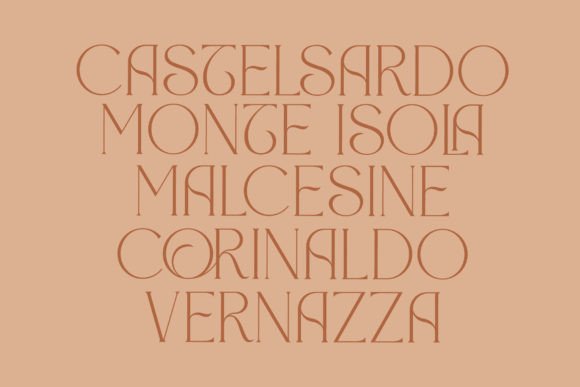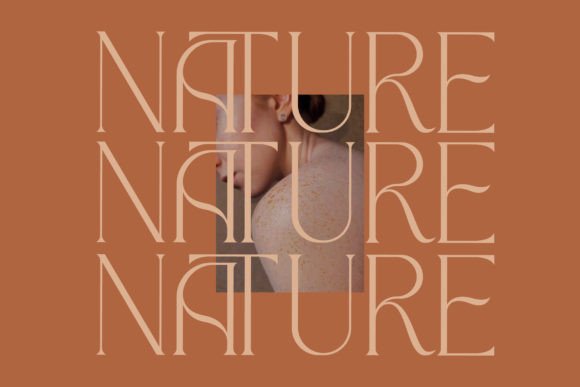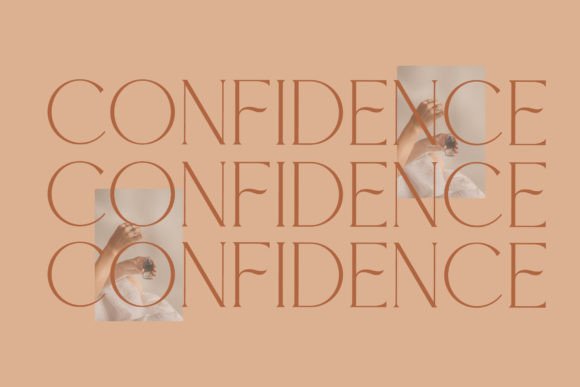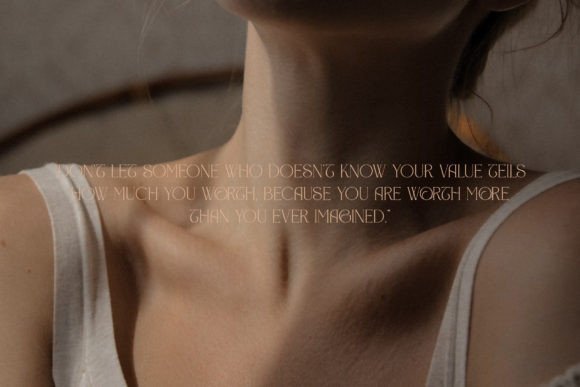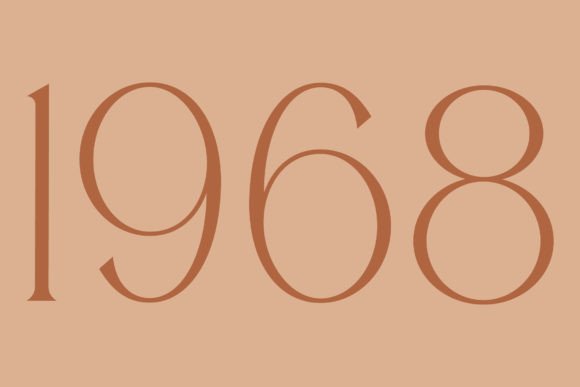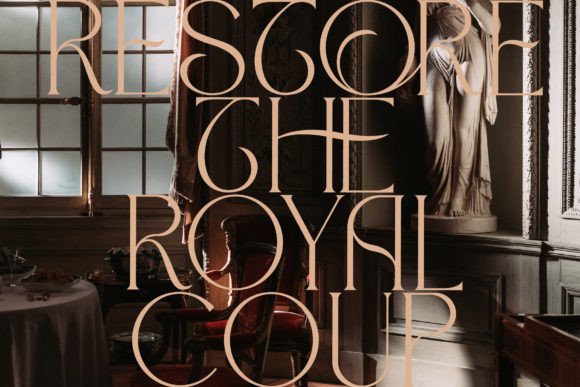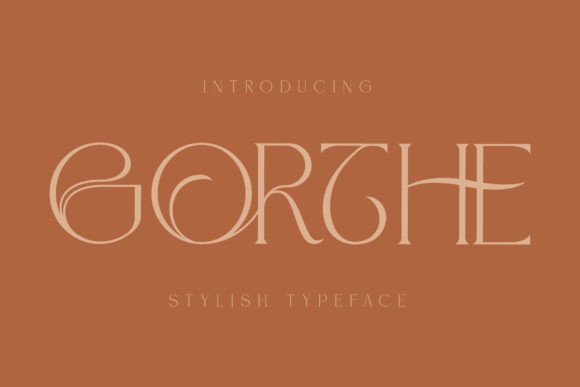
Gorthe Font: A Timeless Serif Typeface for Elegant Designs
In the world of typography, a well-crafted font can elevate a design from ordinary to extraordinary. For designers and crafters seeking a serif modern and classic typeface that exudes elegance and sophistication, look no further than Gorthe Font. This stunning typeface boasts a unique style and modern look, making it perfect for a wide range of applications, from luxury logos and book titles to fashion brands and magazine layouts.
The Characteristics of Gorthe Font
Gorthe Font is a serif typeface that strikes the perfect balance between modernity and classic charm. Its clean lines, precise curves, and elegant strokes make it an excellent choice for designs that require a touch of sophistication. The font’s unique style is characterized by:
- Classic serif structure: Gorthe Font features a traditional serif structure, complete with subtle flair and finesse.
- Modern aesthetic: The font’s sleek lines and streamlined curves give it a distinctly modern feel.
- Unique personality: Gorthe Font’s distinctive character set it apart from other serif typefaces, making it perfect for designers seeking a one-of-a-kind look.
Perfect for Elegant and Luxury Designs
Gorthe Font is specifically designed to add a touch of elegance and luxury to any design project. Its sophisticated appearance makes it perfect for:
- Luxury logos: Create a lasting impression with a custom logo that exudes refinement and poise.
- Book or movie title design: Add a touch of classic Hollywood glamour to your title designs with Gorthe Font.
- Fashion brands: Elevate your fashion brand with a sophisticated typeface that reflects your commitment to style and quality.
- Magazine layouts: Create a visually stunning magazine layout with Gorthe Font’s elegant and refined appearance.
- Clothes and lettering: Use Gorthe Font to add a touch of sophistication to your clothing designs, lettering projects, and more.
- Quotes and phrases: Showcase your favorite quotes and phrases in a beautiful and elegant font that demands attention.
Why Choose Gorthe Font?
With so many typefaces to choose from, why settle on Gorthe Font? Here are just a few reasons why designers and crafters love this versatile serif typeface:
- Unique style: Gorthe Font’s distinctive character set it apart from other serif typefaces.
- High-quality design: The font is meticulously crafted to ensure a smooth and elegant appearance.
- Versatility: Use Gorthe Font for a wide range of design projects, from luxury logos to magazine layouts.
- Ease of use: The font is easy to read and works beautifully in both digital and print formats.
Tips for Using Gorthe Font
To get the most out of Gorthe Font, here are a few tips to keep in mind:
- Pair with complementary fonts: Combine Gorthe Font with sans-serif fonts or script fonts to create a visually interesting design.
- Experiment with font sizes: Use Gorthe Font in a variety of font sizes to create visual hierarchy and add depth to your design.
- Pay attention to spacing: Ensure that your text is easy to read by paying attention to letter spacing and line height.
In conclusion, Gorthe Font is a stunning serif typeface that offers a unique blend of classic elegance and modern sophistication. Its versatility, high-quality design, and ease of use make it an excellent choice for designers and crafters seeking a timeless font for their design projects. Whether you’re creating a luxury logo, book title, or fashion brand, Gorthe Font is sure to impress.